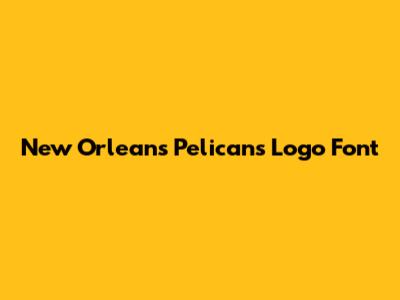
New Orleans Pelicans Logo Font: A Deep Dive
Let's dive deep into the fascinating world of the New Orleans Pelicans logo font! Understanding the typography behind a sports team's branding is super interesting. It gives you insight into their identity and how they want to be perceived. So, whether you're a die-hard Pelicans fan, a design enthusiast, or just curious about fonts, this article is for you. We'll explore every detail of the New Orleans Pelicans logo font. This includes its history, design elements, and the impact it has on the team's overall image. You'll get a comprehensive overview that will enhance your appreciation for the visual identity of this iconic NBA franchise.
The New Orleans Pelicans, established in 2002 as the New Orleans Hornets, rebranded in 2013. This marked a significant shift in the franchise's identity. The name change from Hornets to Pelicans was inspired by Louisiana's state bird, the brown pelican, symbolizing the region's rich cultural heritage and natural beauty. With the rebranding came a new logo. The logo represents the team's connection to New Orleans and its unique spirit. The visual transformation included the adoption of a new color scheme that reflects the vibrant energy of the city. This was a strategic move to create a distinct and memorable image for the team. The rebranding aimed to resonate with fans and establish a strong sense of local pride. The Pelicans' new identity aimed to capture the essence of New Orleans. This was to build a lasting legacy in the NBA. The logo and its font play a crucial role in conveying this message, making the team instantly recognizable and deeply rooted in its community.
Analyzing the New Orleans Pelicans logo font involves looking at its key features. This includes the font's style, weight, and overall appearance. The font is a custom design, which means it's unique to the Pelicans and not a widely available typeface. It reflects the team's brand identity. The font has a bold and dynamic quality, conveying strength and energy. The letters are stylized, with sharp angles and curves that evoke a sense of motion and agility, mirroring the athleticism of the basketball team. The font's weight is substantial. This makes it highly visible and impactful. It ensures that the team's name stands out prominently in the logo and other branding materials. The font also incorporates subtle details. These details tie it to the Pelicans' visual theme. The overall design balances modernity with tradition. It creates a timeless yet contemporary feel. Understanding these elements is essential for appreciating the strategic thought behind the Pelicans' visual branding.
Exploring the Design Elements
When we talk about the design elements, we need to focus on the specifics that make it unique. The New Orleans Pelicans logo font incorporates several distinct design elements that contribute to its overall appeal. The font features a combination of sharp angles and smooth curves, creating a dynamic and modern look. The serifs, or lack thereof, play a crucial role in defining the font's character; the Pelicans' font uses a sans-serif style. This style gives it a clean and contemporary feel. The letterforms are carefully crafted. Each letter has a unique shape that reflects the team's brand identity. The negative space within and around the letters is also thoughtfully considered. This ensures legibility and visual balance. The font's color, typically a combination of navy blue, gold, and red, further enhances its impact. These colors evoke the vibrancy of New Orleans. They also reinforce the team's connection to the city. The font's texture and depth add another layer of visual interest. The font is designed to be versatile. It works well in various applications, from the team's jerseys and merchandise to digital media and advertising. The design elements of the Pelicans logo font combine to create a powerful and recognizable visual identity. This identity captures the essence of the team and its connection to New Orleans.
Looking into the specific characteristics of the New Orleans Pelicans logo font reveals a deep understanding of branding and visual communication. The font's letterforms are uniquely tailored. They reflect the dynamic and energetic nature of the basketball team. Each character is meticulously crafted. This ensures that the font is both visually appealing and highly legible. The font's weight is carefully balanced. It is bold enough to make a statement but not so heavy that it appears clunky or overwhelming. The spacing between letters, known as kerning, is also precisely adjusted. This ensures a harmonious and balanced appearance. The font's height and width proportions are optimized for maximum impact. They also contribute to its overall readability. The angles and curves within the letterforms are intentionally designed. They evoke a sense of movement and agility. This reinforces the team's athletic identity. The font's color palette is integral to its design. The navy blue, gold, and red hues are strategically used to create a visually striking and memorable impression. These characteristics combine to make the New Orleans Pelicans logo font a powerful tool for brand recognition and visual communication.
The History and Evolution of the Font
The history and evolution of the New Orleans Pelicans logo font are essential to understanding its current form. When the franchise rebranded from the New Orleans Hornets to the Pelicans in 2013, a significant overhaul of the team's visual identity took place. The original Hornets logo featured a different font style. This style was more traditional and less dynamic. The transition to the Pelicans brought about a new font. The font was specifically designed to reflect the team's new name and connection to Louisiana. The design team likely explored various font options. They also considered different styles and weights before settling on the final version. The font may have undergone several iterations and refinements. This was to ensure it perfectly captured the essence of the Pelicans' brand. Early versions of the font might have been more experimental. The final version was chosen for its balance of modernity, readability, and visual appeal. The evolution of the font reflects the team's desire to create a unique and memorable identity that resonates with fans and represents the spirit of New Orleans. The font has remained relatively consistent since its introduction. This consistency helps to reinforce the team's brand and create a lasting impression.
Understanding the evolutionary journey of the New Orleans Pelicans logo font is crucial. It provides context to its current design and significance. Before the Pelicans, the franchise was known as the New Orleans Hornets. The Hornets had their own distinct logo and font. When the team rebranded, a deliberate decision was made to move away from the Hornets' imagery. They wanted to embrace a new identity that better represented the city and state. The Pelicans' font was likely developed through a collaborative process. This would involve graphic designers, branding experts, and team management. Initial concepts were presented and refined based on feedback. The final design was chosen for its ability to convey the team's values and appeal to its fan base. The font's evolution reflects a strategic effort to create a visual identity. This identity is both unique and meaningful. The font is a key element in establishing the Pelicans as a distinct and recognizable brand in the NBA. Examining the historical context helps us appreciate the thought and effort that went into creating the font.
Impact on Team Branding
The impact of the New Orleans Pelicans logo font on the team's branding is undeniable. A well-designed font is a crucial element in creating a strong and recognizable brand identity. The Pelicans' font is used consistently across all team-related materials. This includes jerseys, merchandise, marketing campaigns, and digital media. This consistent use helps to reinforce the team's brand and create a cohesive visual identity. The font's unique style and characteristics make it instantly recognizable. This helps the team stand out in a crowded sports market. The font also conveys certain qualities and values associated with the team. This includes strength, energy, and a connection to the city of New Orleans. The font is an integral part of the team's overall brand message. It communicates the Pelicans' identity to fans, sponsors, and the broader public. A strong and well-executed font can enhance the team's image and contribute to its success both on and off the court. The New Orleans Pelicans logo font plays a vital role in shaping and maintaining the team's brand identity.
Consider the role of visual elements. The New Orleans Pelicans logo font significantly influences how the team is perceived. A strong logo and font create a lasting impression. It sets the tone for the team's image. The Pelicans' font is modern and dynamic. It reflects the energy and excitement of the game. This positive association helps to build brand loyalty. Fans identify with the team's visual identity. It becomes a symbol of their support and passion. The font's integration into the team's marketing and advertising efforts enhances brand recognition. When people see the font, they immediately associate it with the New Orleans Pelicans. The font's consistency across various platforms reinforces this association. This consistency helps to build a strong and cohesive brand image. The font also plays a role in differentiating the Pelicans from other NBA teams. Its unique style helps the team stand out. This makes it more memorable and recognizable. The New Orleans Pelicans logo font is a valuable asset. It contributes to the team's overall brand equity and success.
Fonts Similar to the Pelicans Logo Font
Finding fonts similar to the New Orleans Pelicans logo font can be useful for designers and fans alike. While the exact font is custom-made, several commercially available fonts share similar characteristics. These alternatives can be used in projects that require a similar aesthetic. Fonts with a bold, sans-serif style and sharp angles are good starting points. Examples include fonts like Bebas Neue, Montserrat, and Oswald. These fonts share the clean, modern look of the Pelicans' font. They are widely available and easy to use. Fonts with a similar weight and letterform structure can also be considered. Look for fonts that have a strong visual presence. These fonts can convey a sense of energy and dynamism. Experimenting with different fonts and adjusting their spacing and size can help achieve a closer match. Online font identification tools can also be helpful. These tools allow you to upload an image of the Pelicans' font. The tool will then suggest similar fonts from its database. While no font will be an exact match, these alternatives can provide a similar look and feel.
When exploring font alternatives, consider these factors. The New Orleans Pelicans logo font has a unique combination of characteristics. It's important to find a font that captures the essence of its design. Look for fonts with a similar sans-serif style. This is a key element of the Pelicans' font. Pay attention to the font's weight and boldness. A font that is too light or too heavy will not have the same impact. Consider the shape and structure of the letterforms. Look for fonts with similar angles and curves. Experiment with different fonts. Compare them side-by-side to see which one comes closest to the Pelicans' font. Adjust the font's size, spacing, and color. This customization will help you achieve the desired look. Use online resources and font libraries to find a wide variety of options. Don't be afraid to try different fonts. Find the one that best suits your needs. Remember that the goal is to find a font. This font captures the spirit of the Pelicans' brand. It also complements your design project.